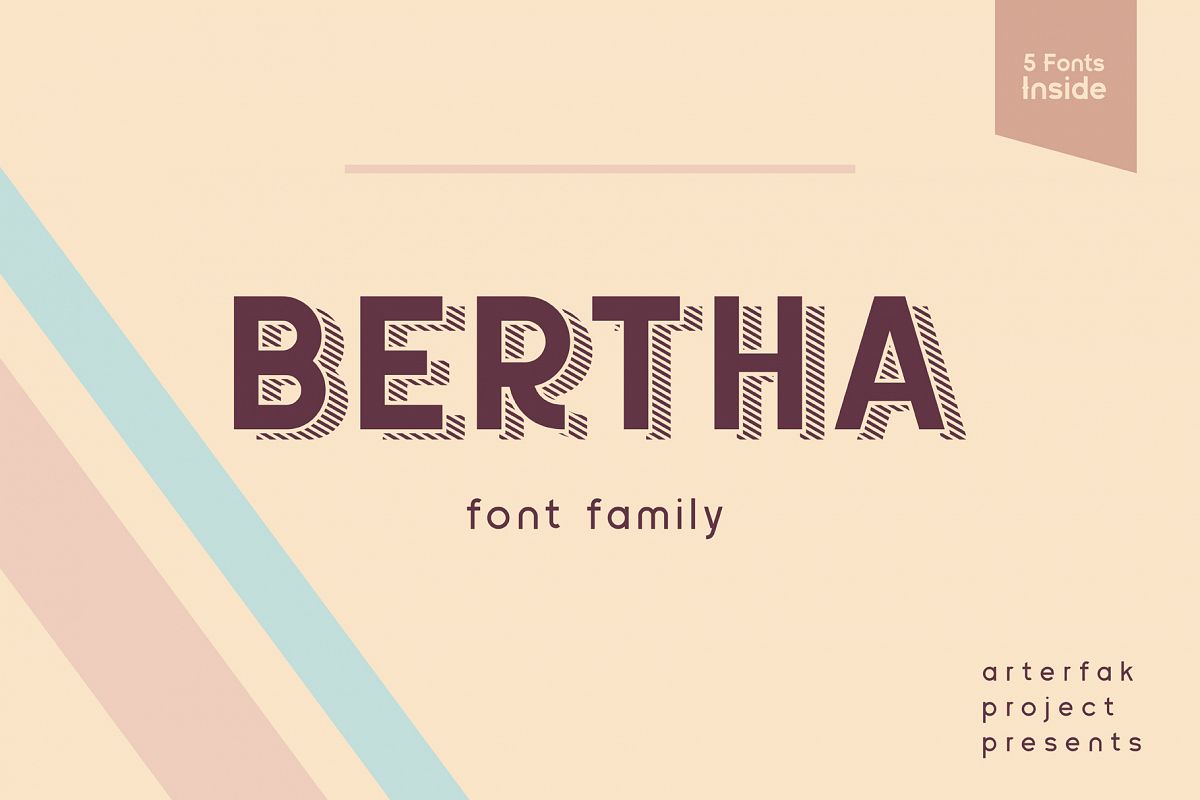
Introducing Bertha
font family. Stylish sans serif which contained 5 fonts inside. Modern
& minimalist to mix and match in your layout design such like the
headline, sub-headline, tagline and body text.
This font family still
looks good to use them separated to your any design project.
This font also packed with alternates letters, especially in
'Regular'. Already tested the readability from big to small size.
contemporary stuff.
Font featured :
• Symbols
• 21 Language characters : Afrikaans, Albanian, Catalan, Croatian,
Czech, Danish, Dutch, English, Estonian, Finnish, French, German,
Italian, Maltese, Norwegian, Portugese, Slovak, Slovenian, Spanisch,
Swedish, Zulu.
• Alternates
• Standard ligatures.